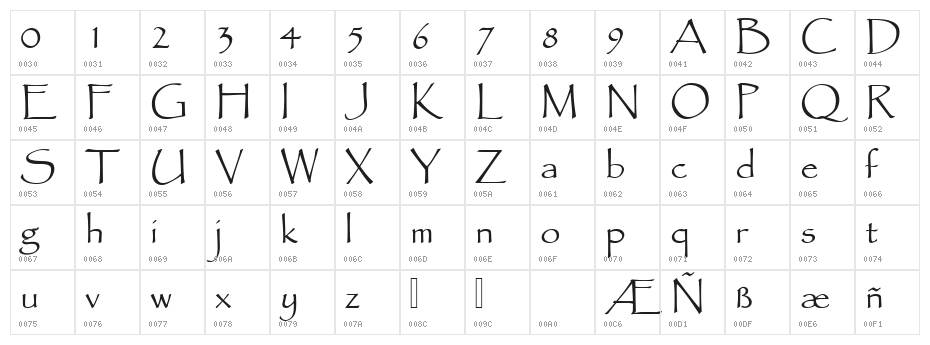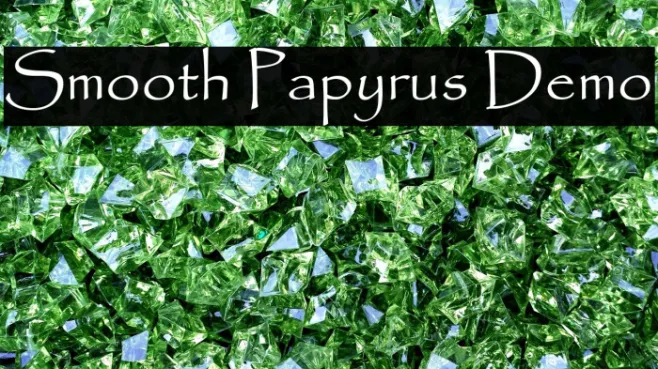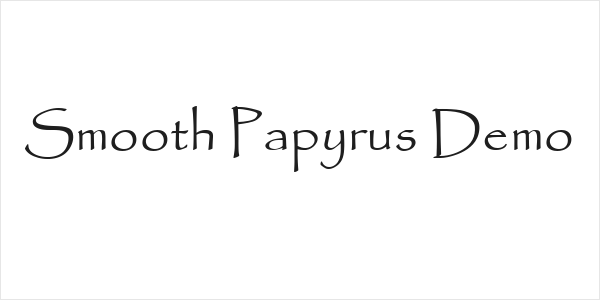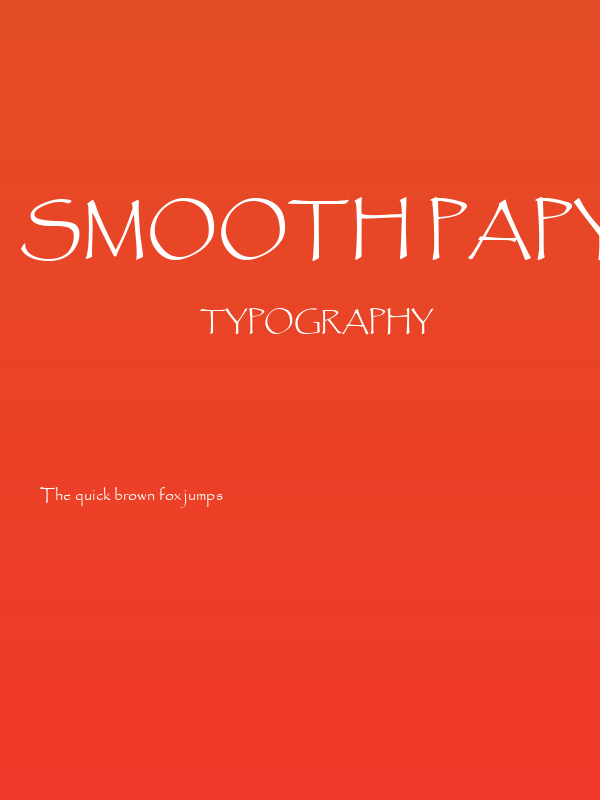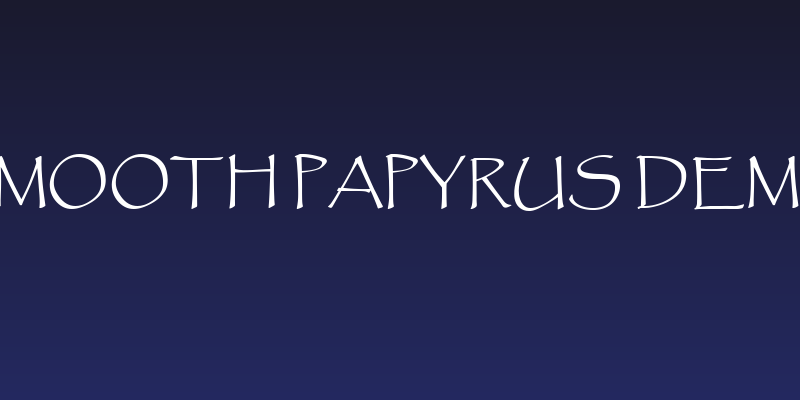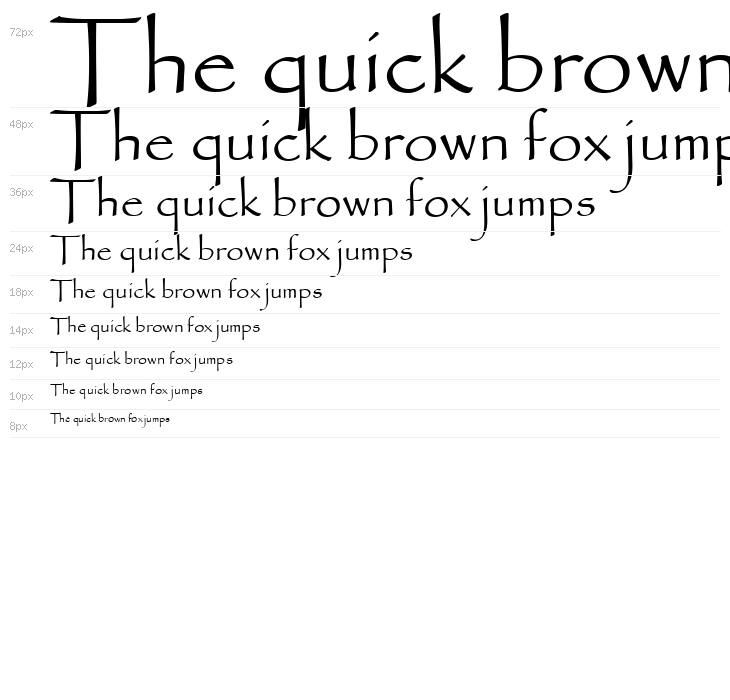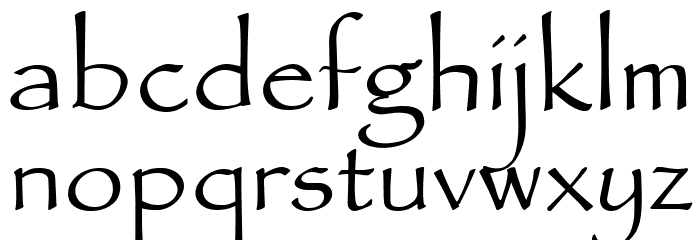
Smooth Papyrus Demo Font
Smooth Papyrus Demo Description
This font features a distinctive, hand-drawn aesthetic with an organic and slightly irregular appearance. The characters have a unique, textured look that mimics the natural imperfections of handwriting. The strokes are uneven, with varying thickness that adds a dynamic and artistic flair. The uppercase letters are tall and slender, while the lowercase letters have a more rounded and flowing form. The numbers and special characters maintain the same handcrafted style, ensuring consistency across all elements. This font evokes a sense of creativity and individuality, making it suitable for projects that require a personal touch.
| Overall Style | Artistic, Handcrafted |
| Proposed Projects | Ideal for artistic projects, invitations, greeting cards, and branding that seeks a personal, handcrafted feel. |